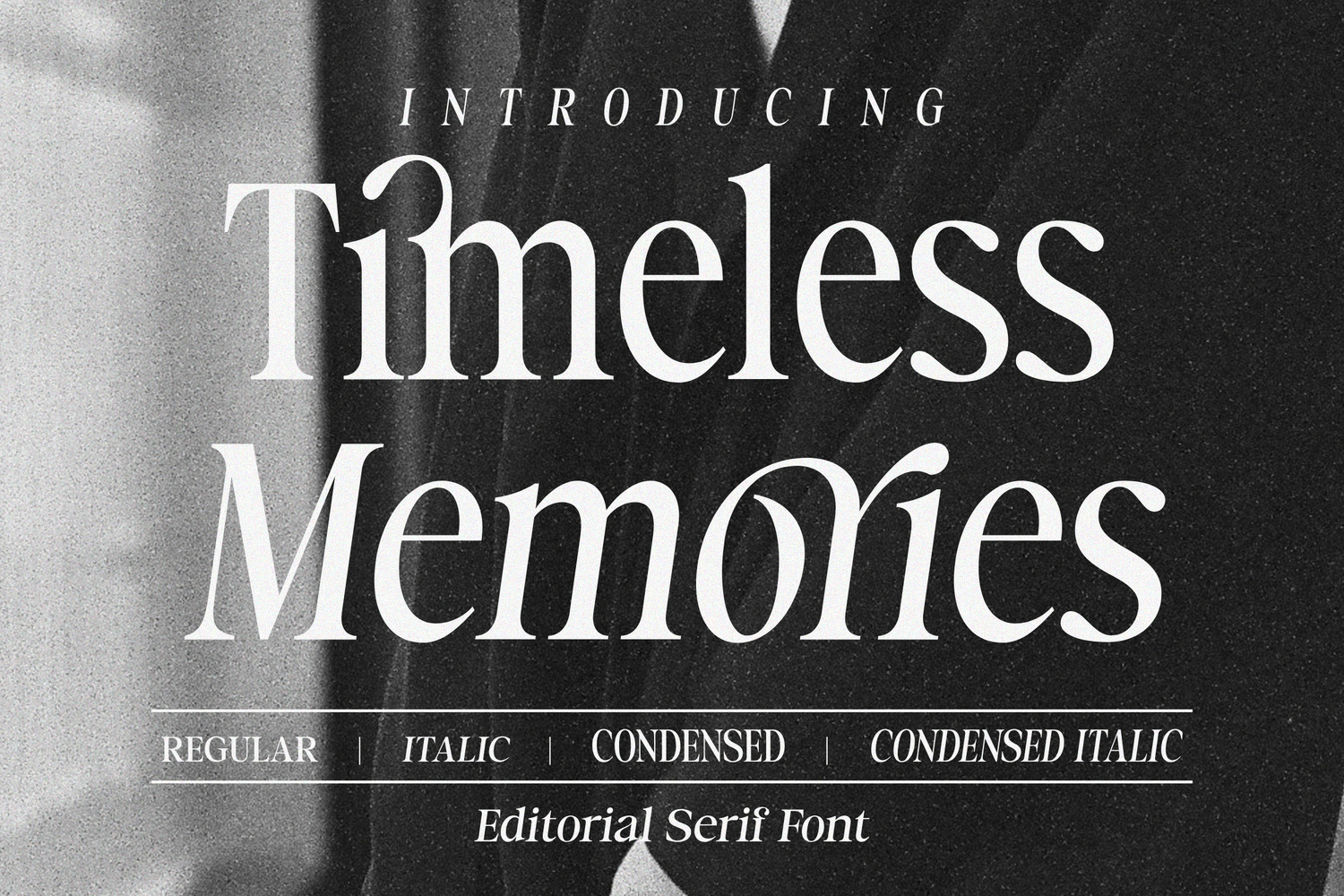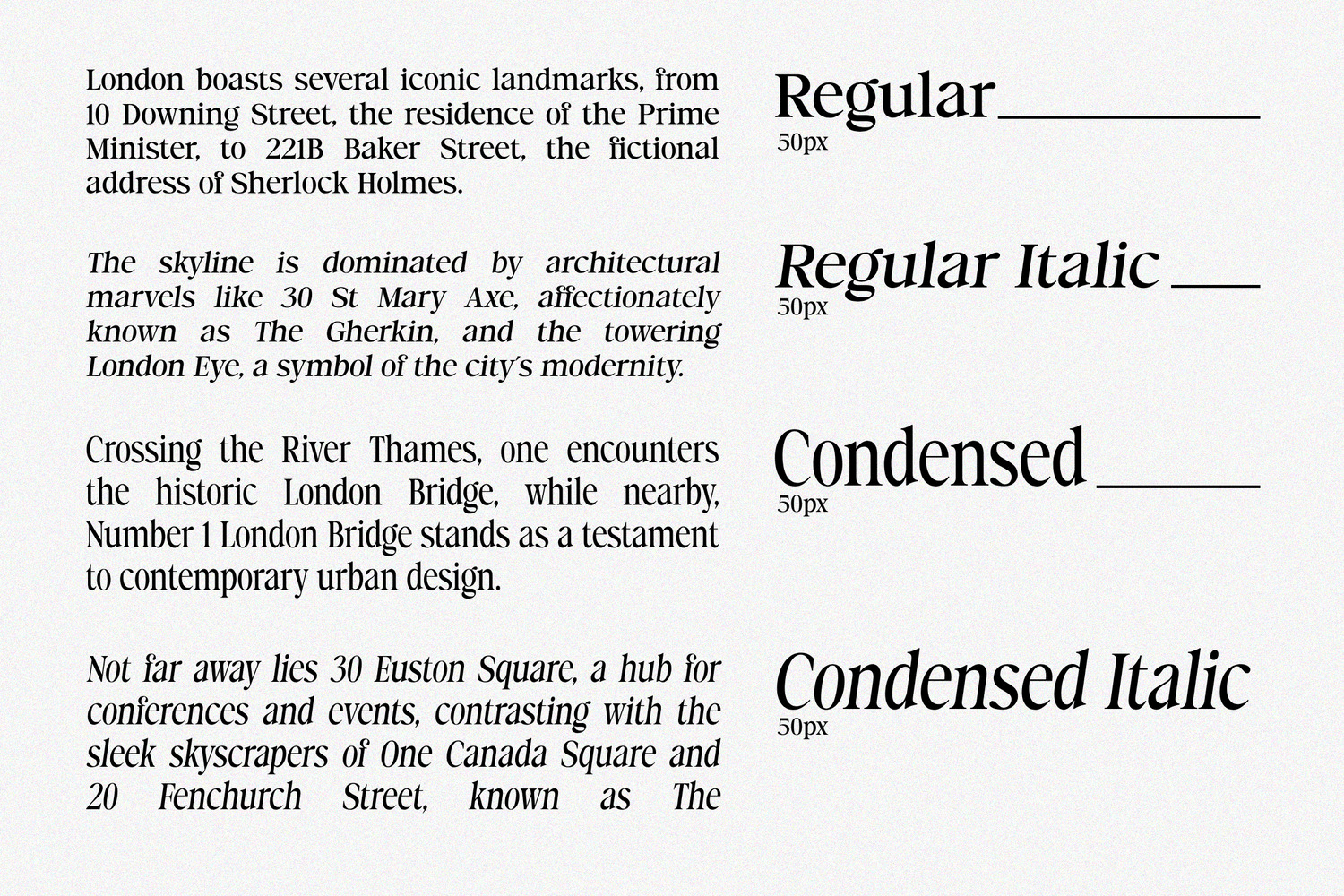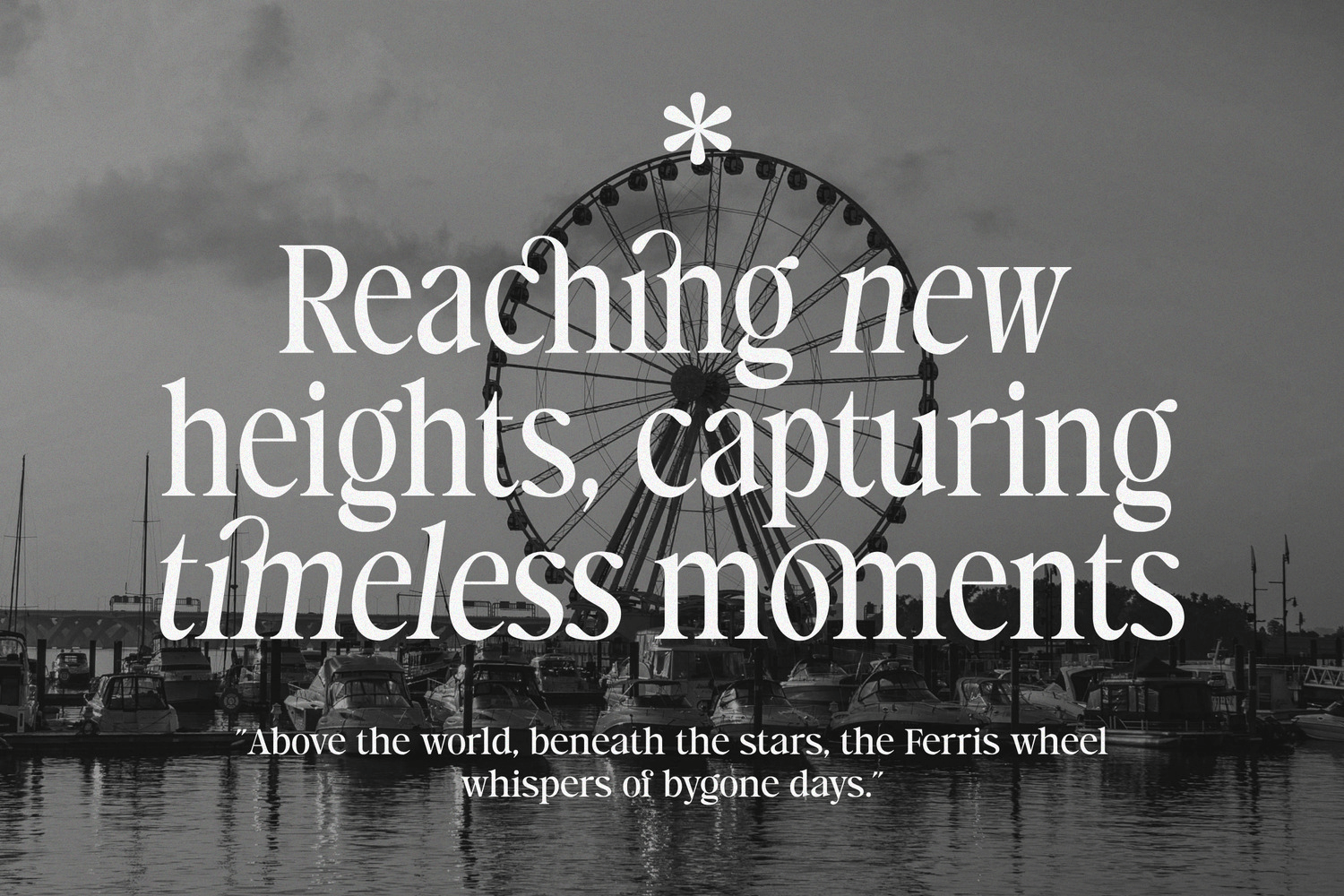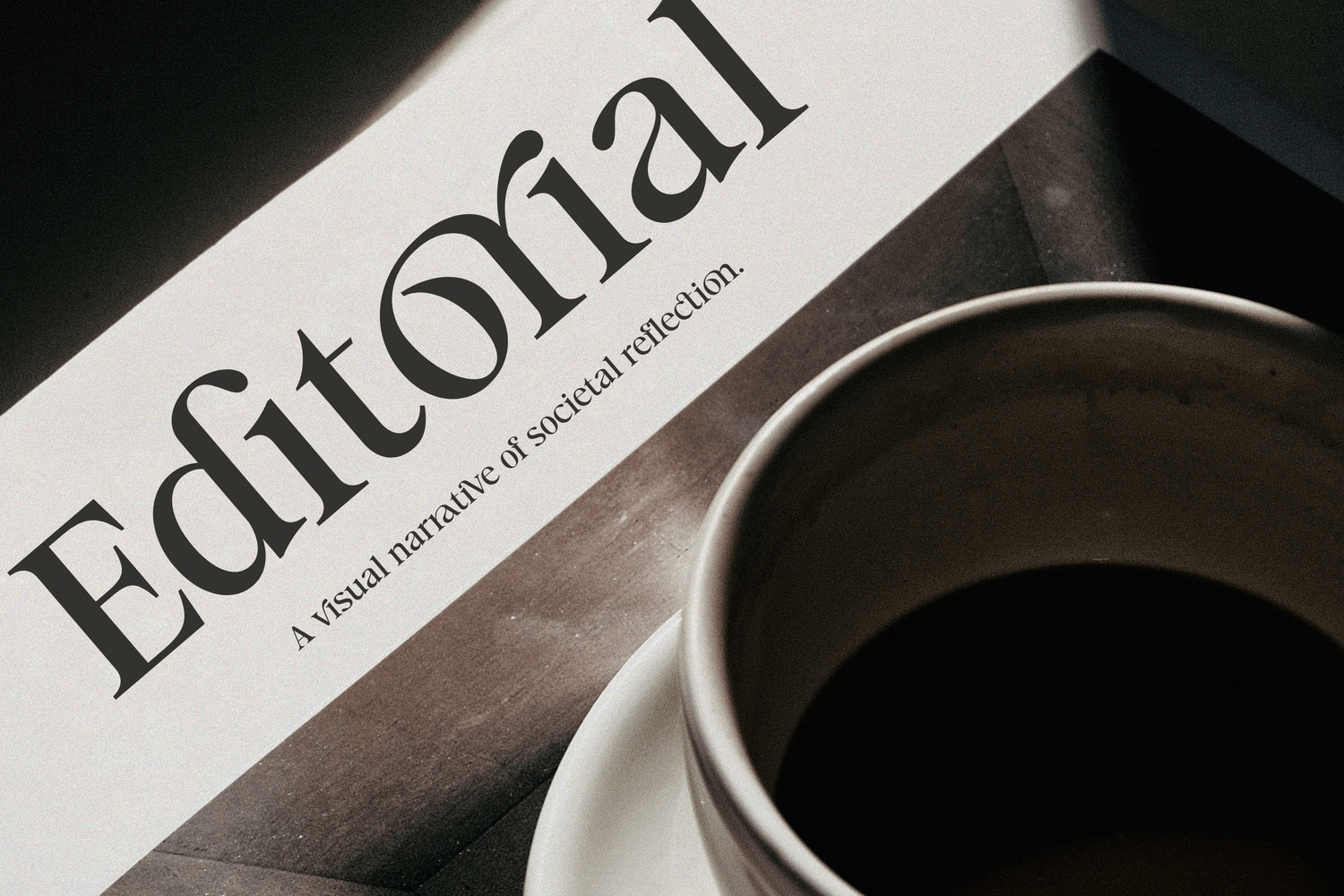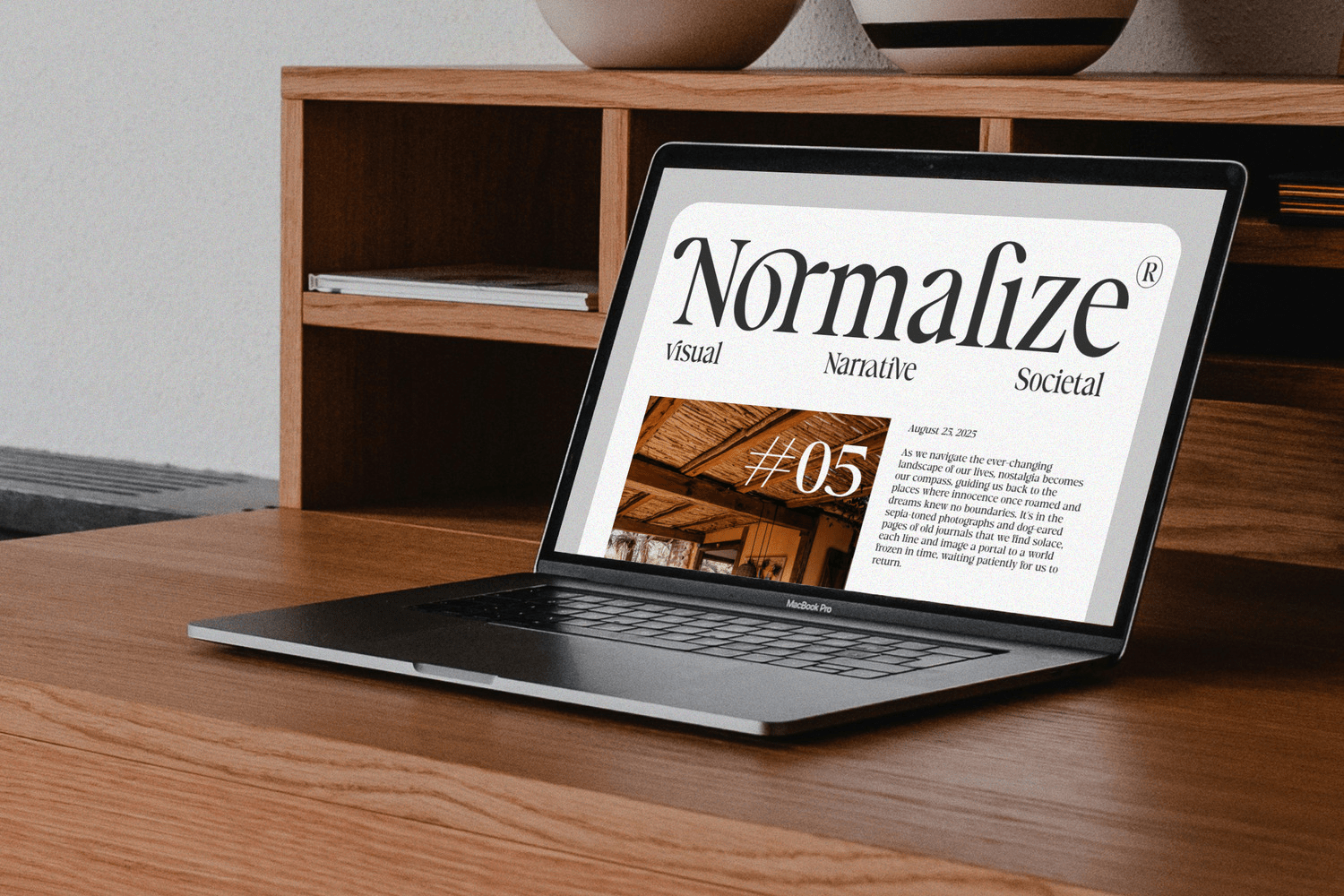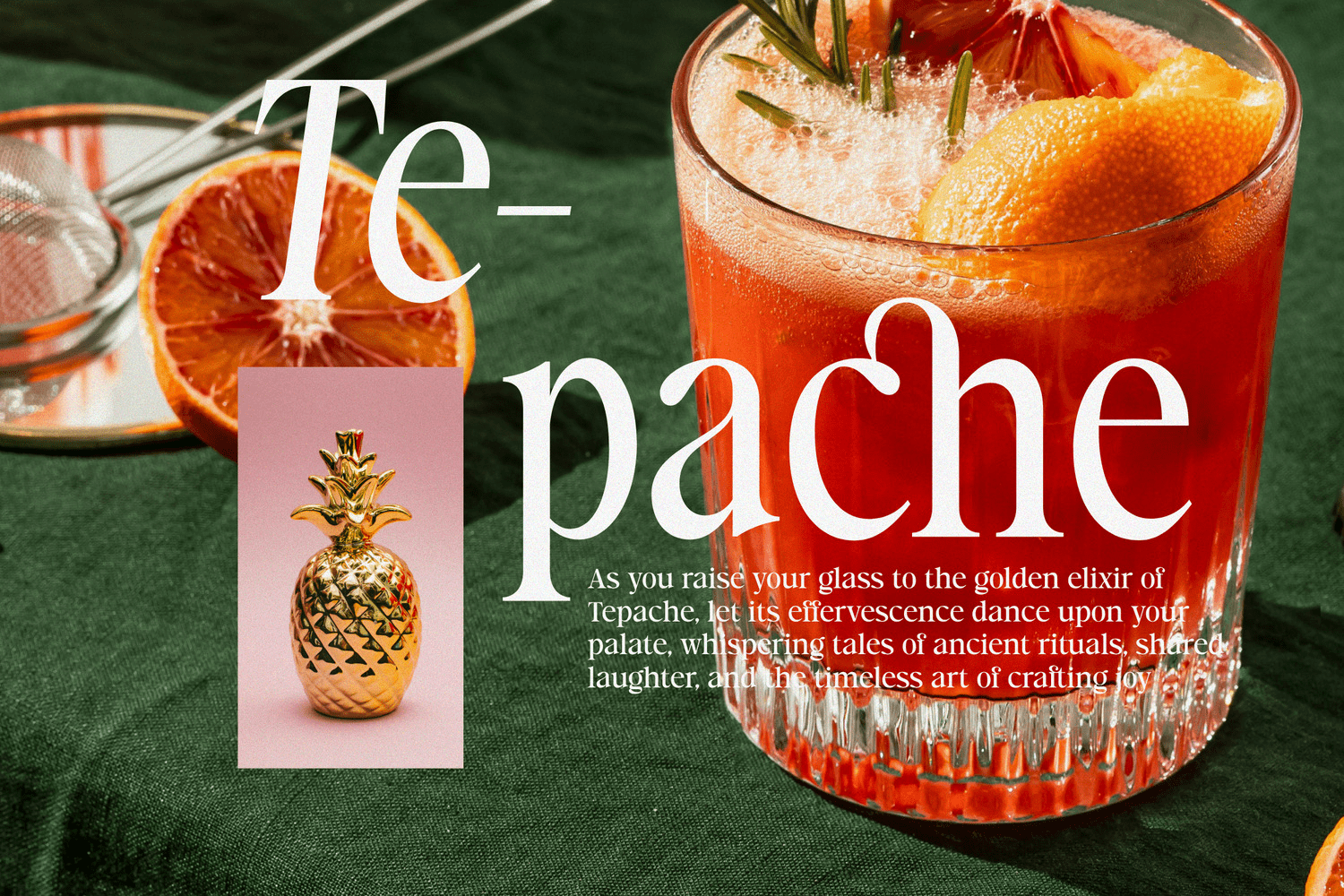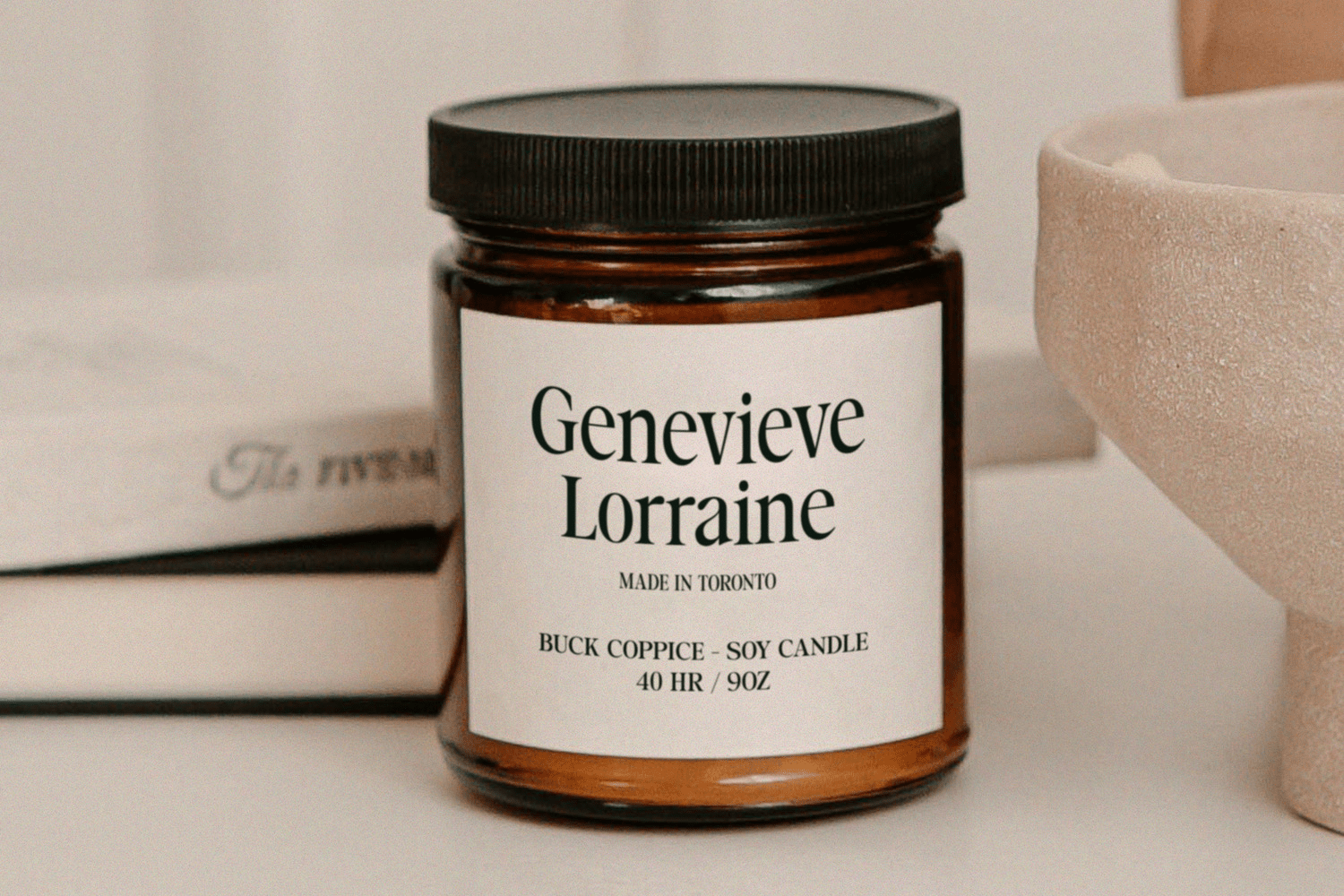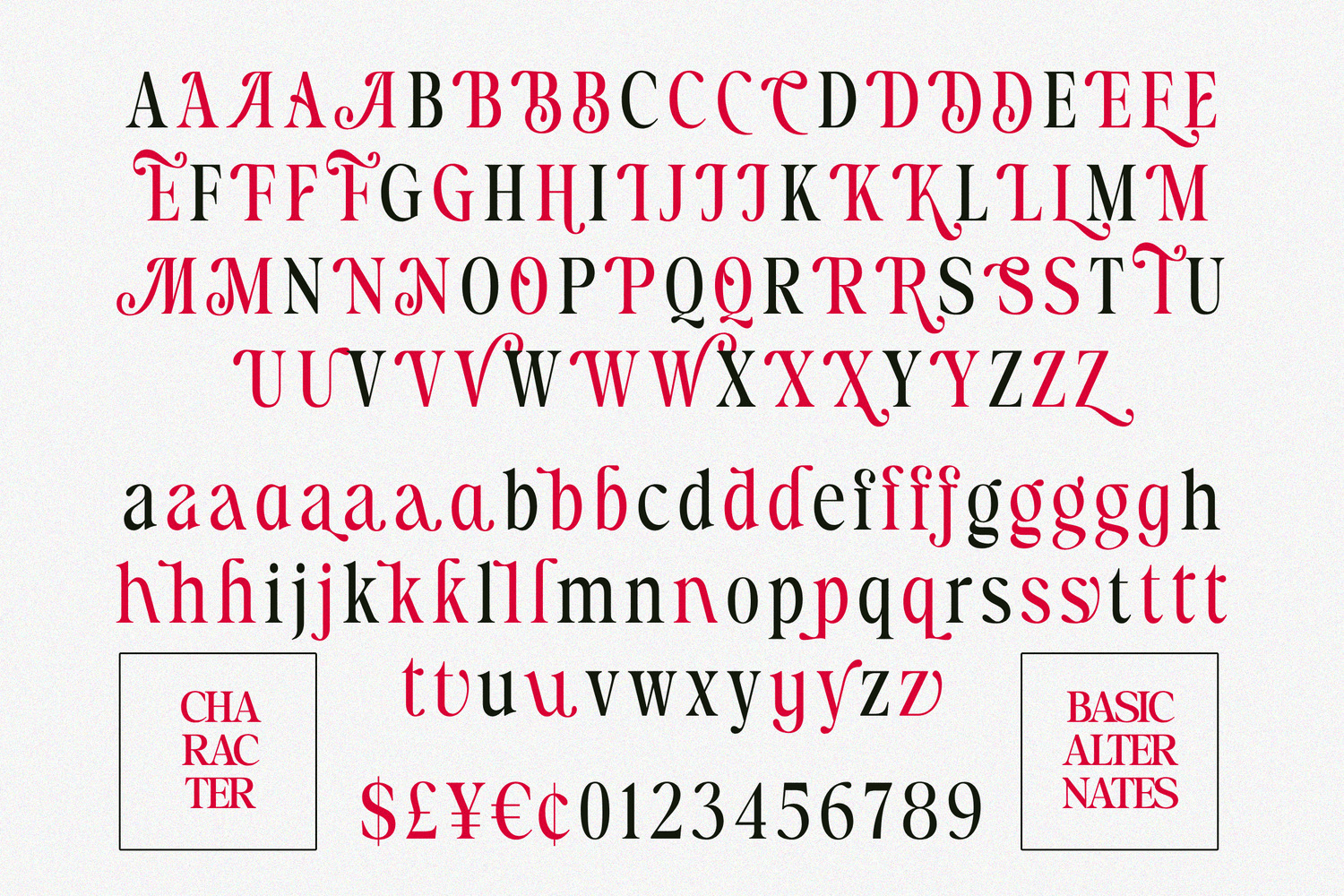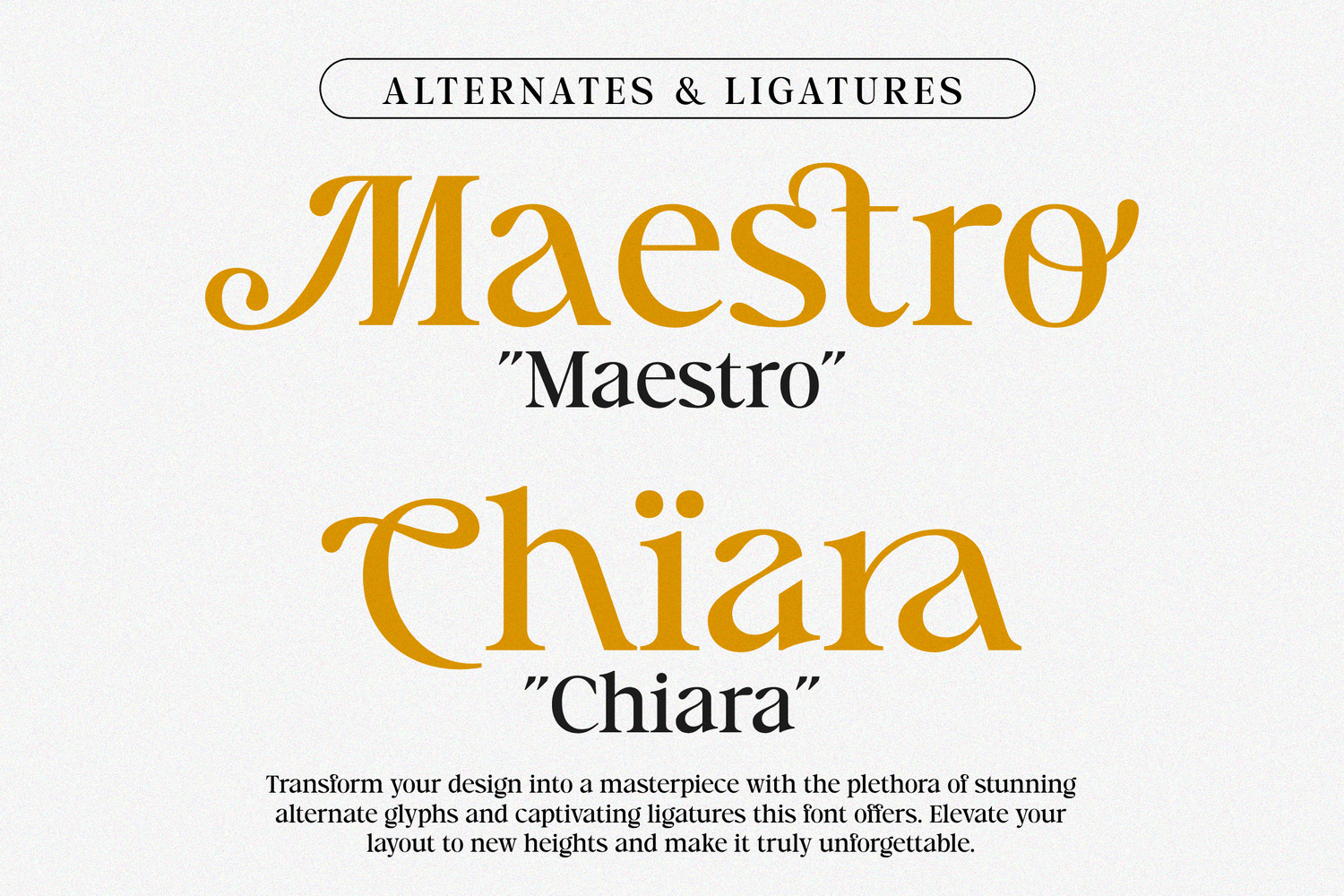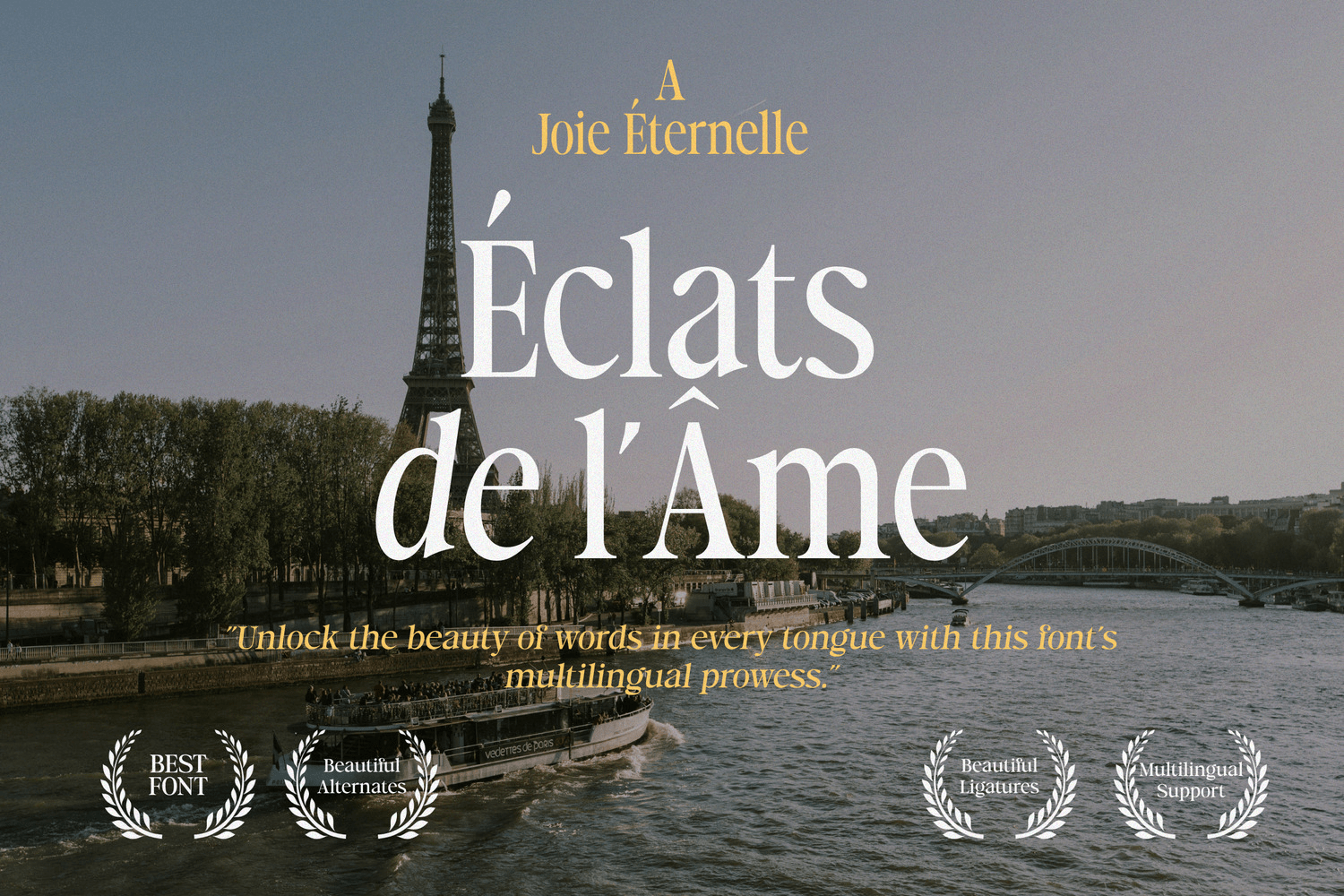
Timeless Memories
Font Family by Dora Typefoundry
Timeless Memories - Classic Modern Serif Font is a stylish font that has a modern Classic look. Comes with alternatives and binders, helps to create amazing logos, quotes, posts, blog posts. branding projects, magazine imagery, wedding invitations and more.